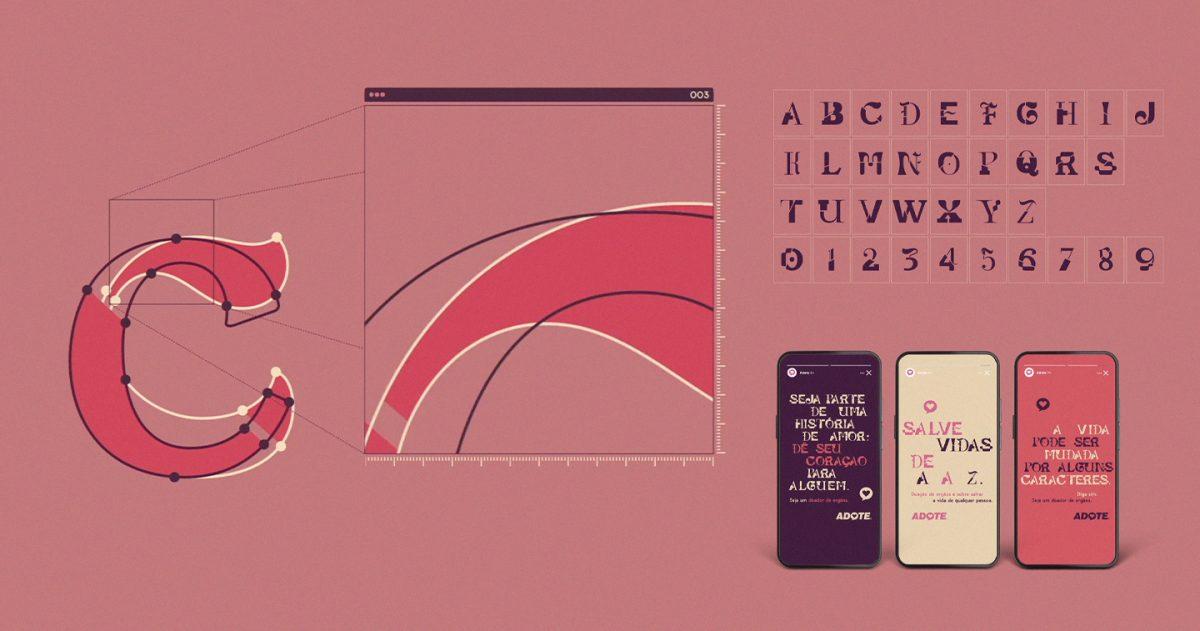
BRASÍLIA, BRAZIL — The number of solid organ transplants fell dramatically around the world between 2019 and 2021, research has found, highlighting the widespread impact of the COVID-19 pandemic on health services and patients.
Adote is a Brazilian foundation dedicated to sharing information about the organ donation and transplantation process through various tools, such as public awareness campaigns, articles, books, leaflets and stickers, lectures, and round tables, in addition to participating in public policy forums. Now their tools of communication include a less obvious, yet powerful and demonstrative asset: a typeface called Donortype which was designed to promote organ donation.
A person can save up to eight lives if he/she chooses to donate organs. To generate awareness about this lesser known fact, and drawing attention to the life-saving importance of organ donation, the design department of White Rabbit Budapest combined 8 different fonts – thus giving life to a brand new typeface, called Donortype.
The 8 fonts represent 8 human organs; the new Donortype – with its imperfectly combined, yet normal and functional fonts – artistically expresses the outcome of an organ donation. The whole alphabet of the typeface with their different bits and pieces demonstrate all the survivors, whose lives were saved by the organ donation of others.
Each and every font is the result of a meticulous and individual design process. Some elements of the “base” fonts were left out, and replaced by other pieces taken from one of the 8 typefaces. The idea was to combine the characteristics of both fonts casting light on the new identity of the Donortype fonts. The colour palette was also carefully selected, reflecting the natural colours of the human body.
Besides using Donortype for posters, the typeface was also uploaded onto all the important font archives and websites, and made available for free downloads – so when it’s shared and used, this very special typeface could easily communicate the importance of organ donation.